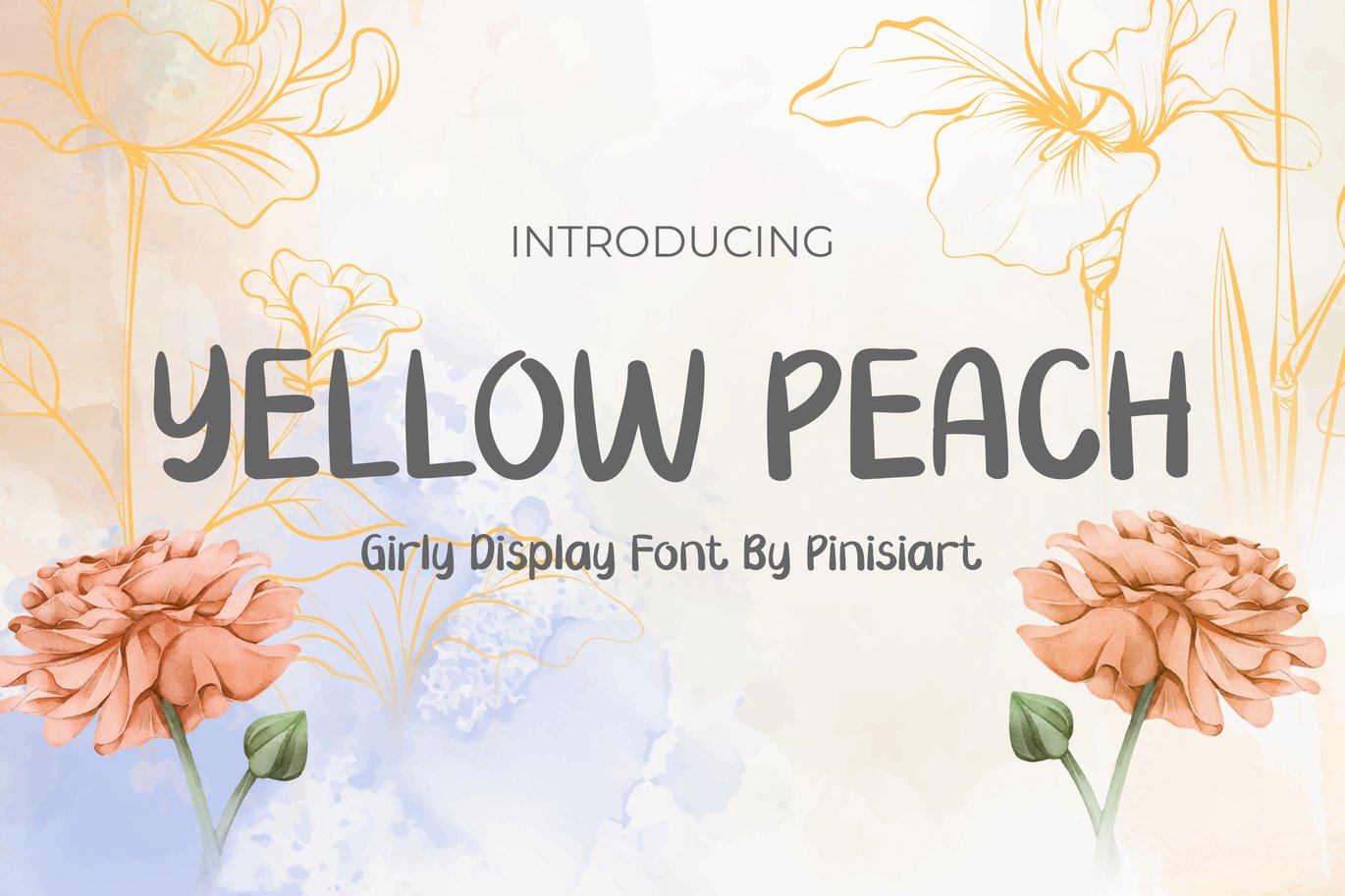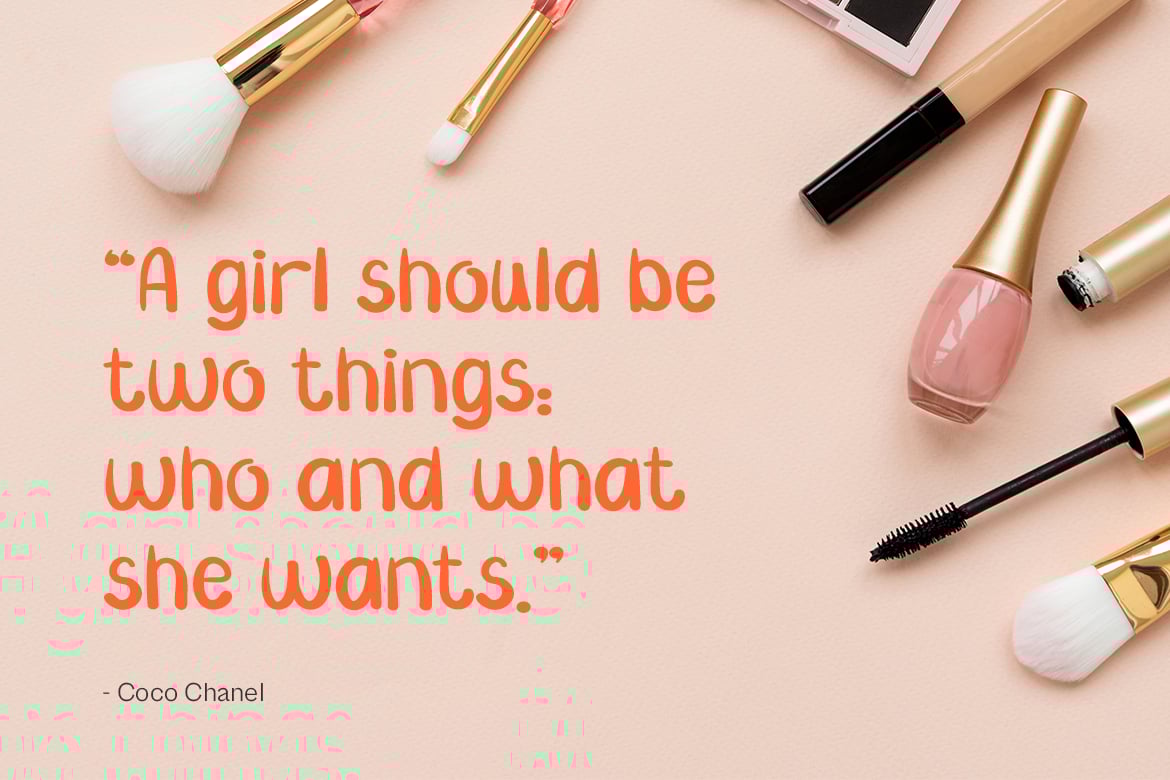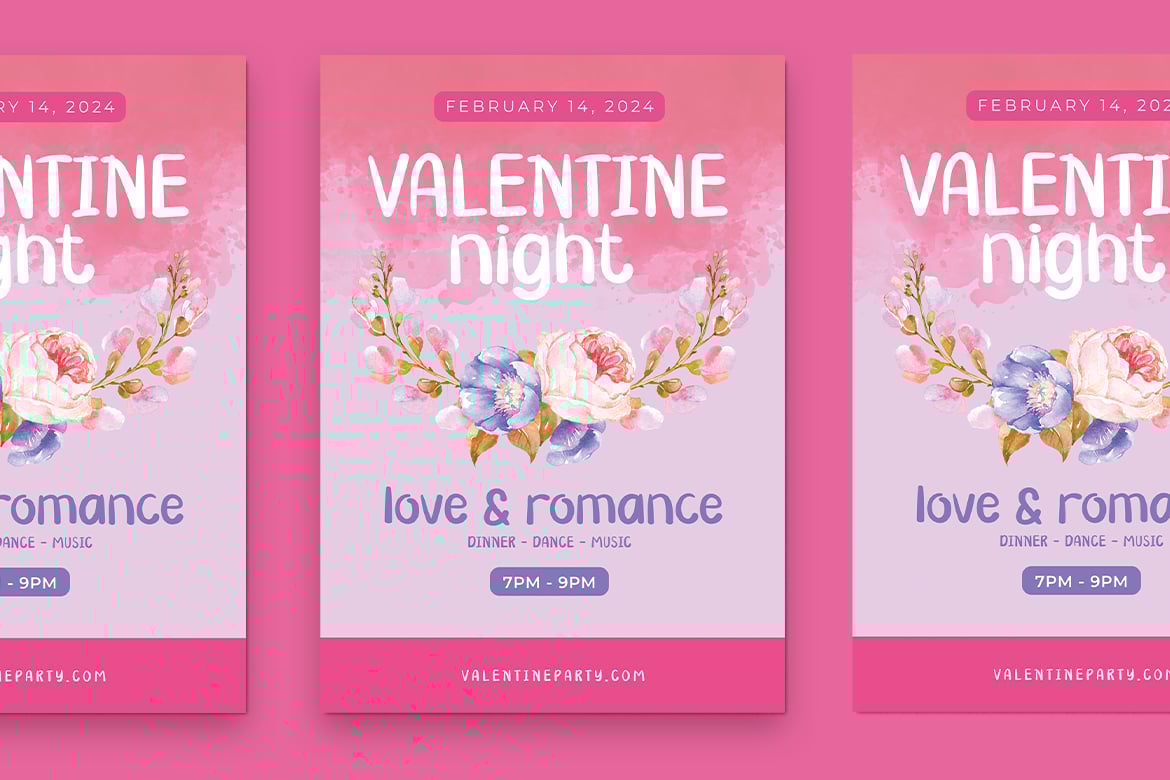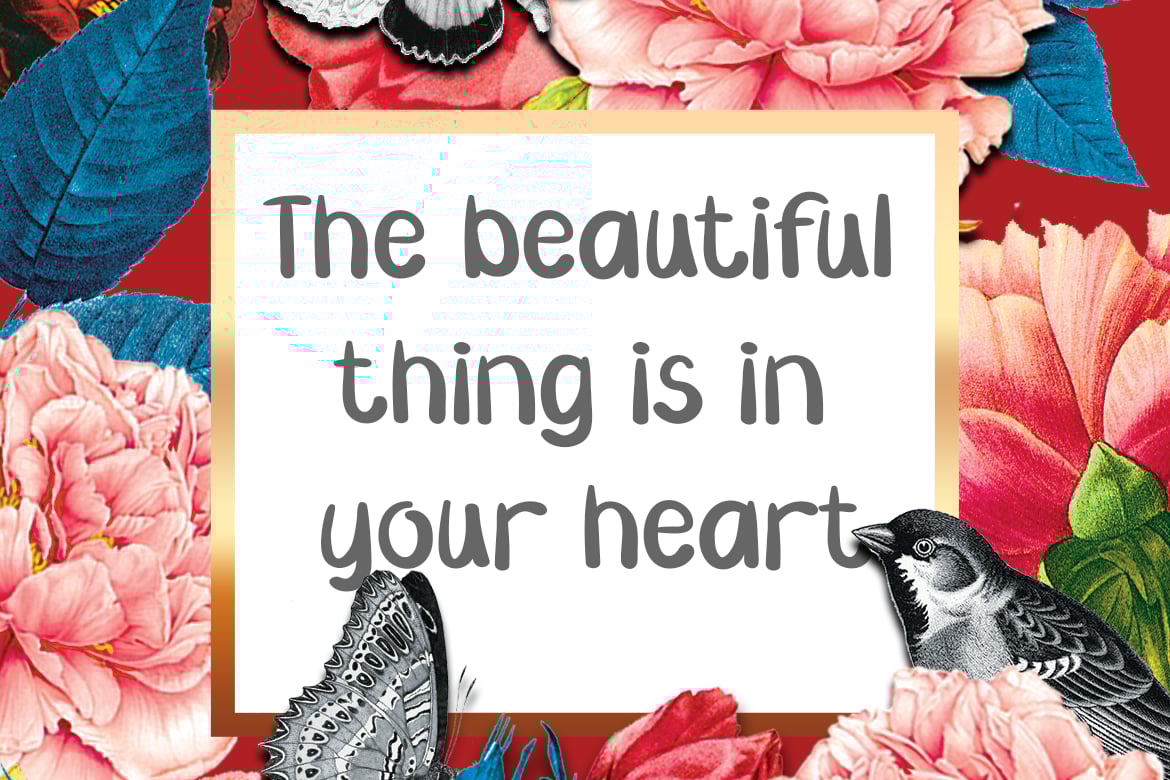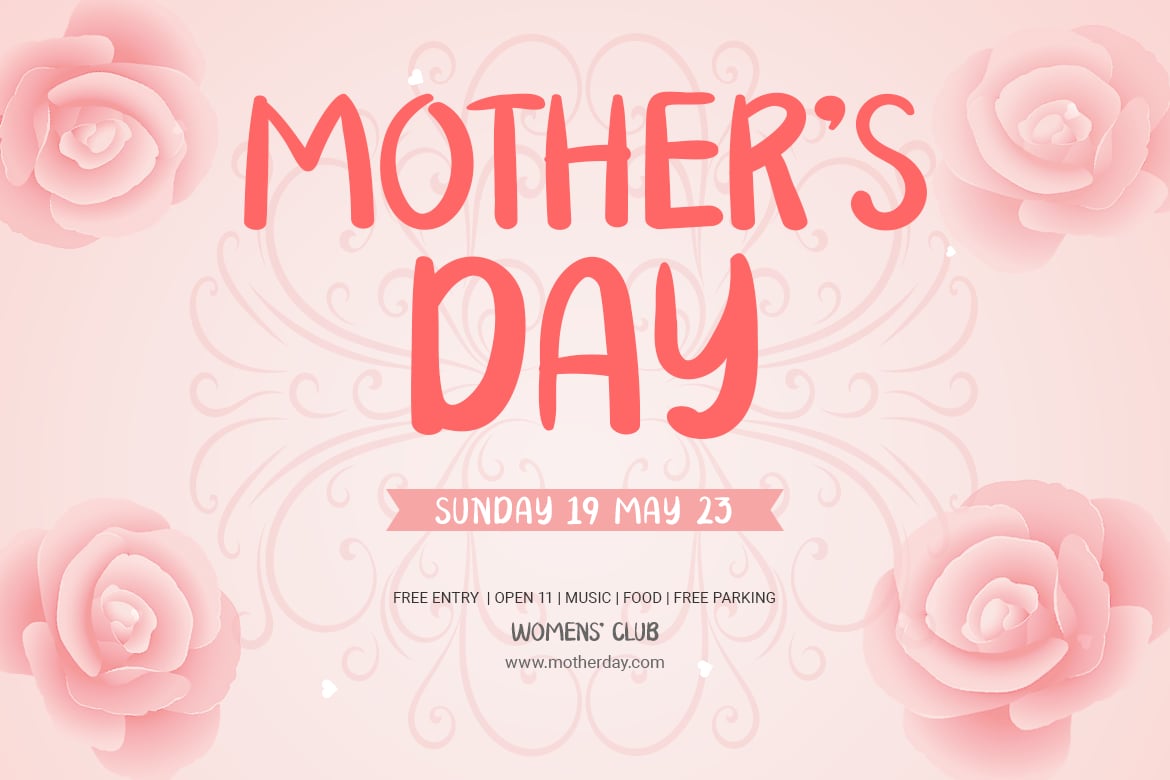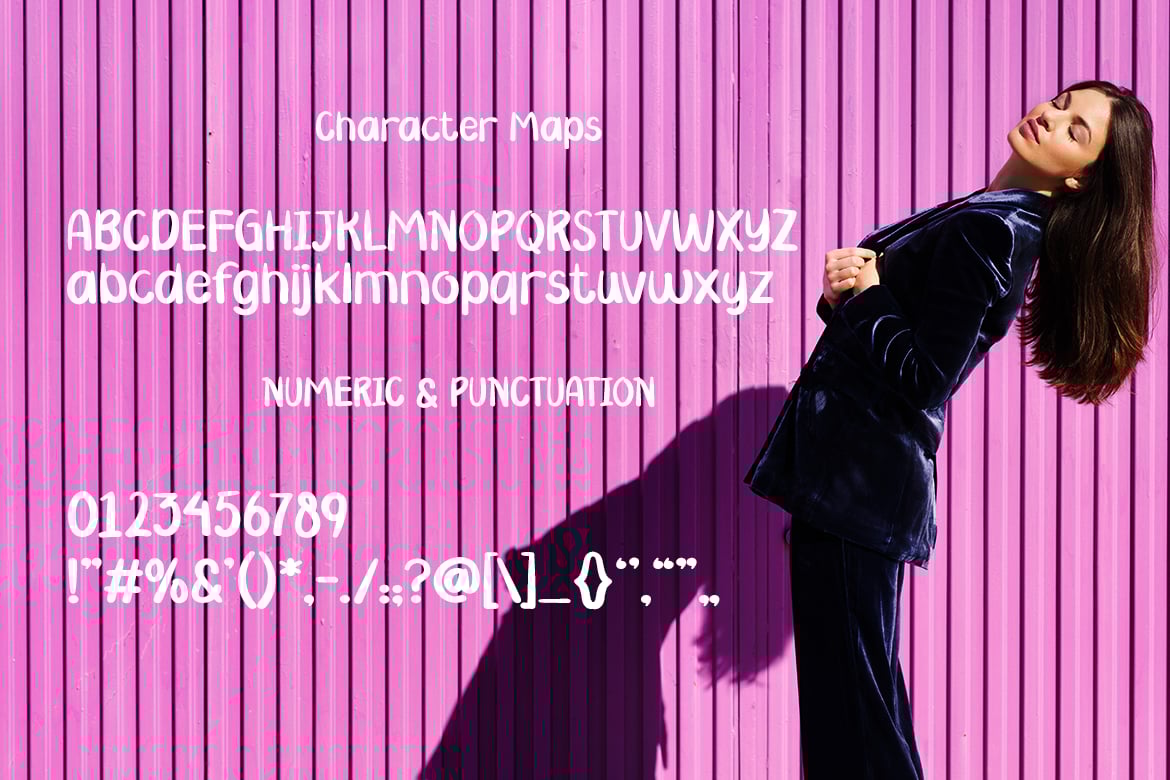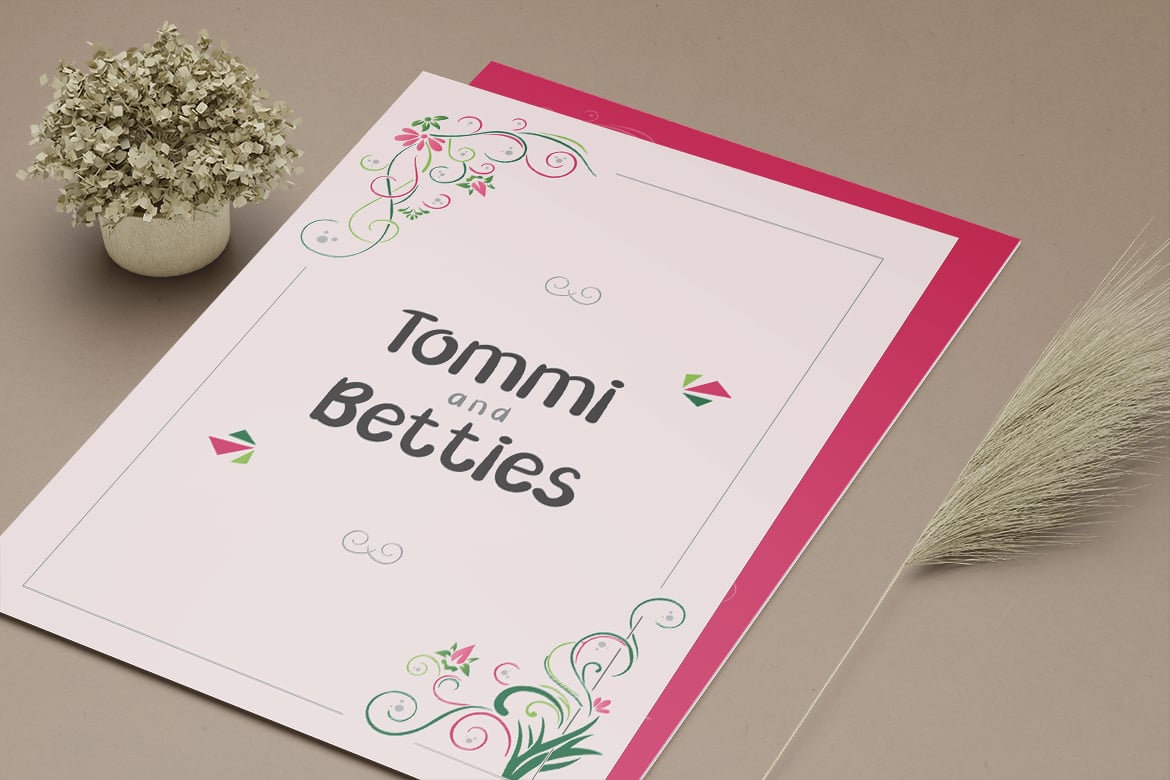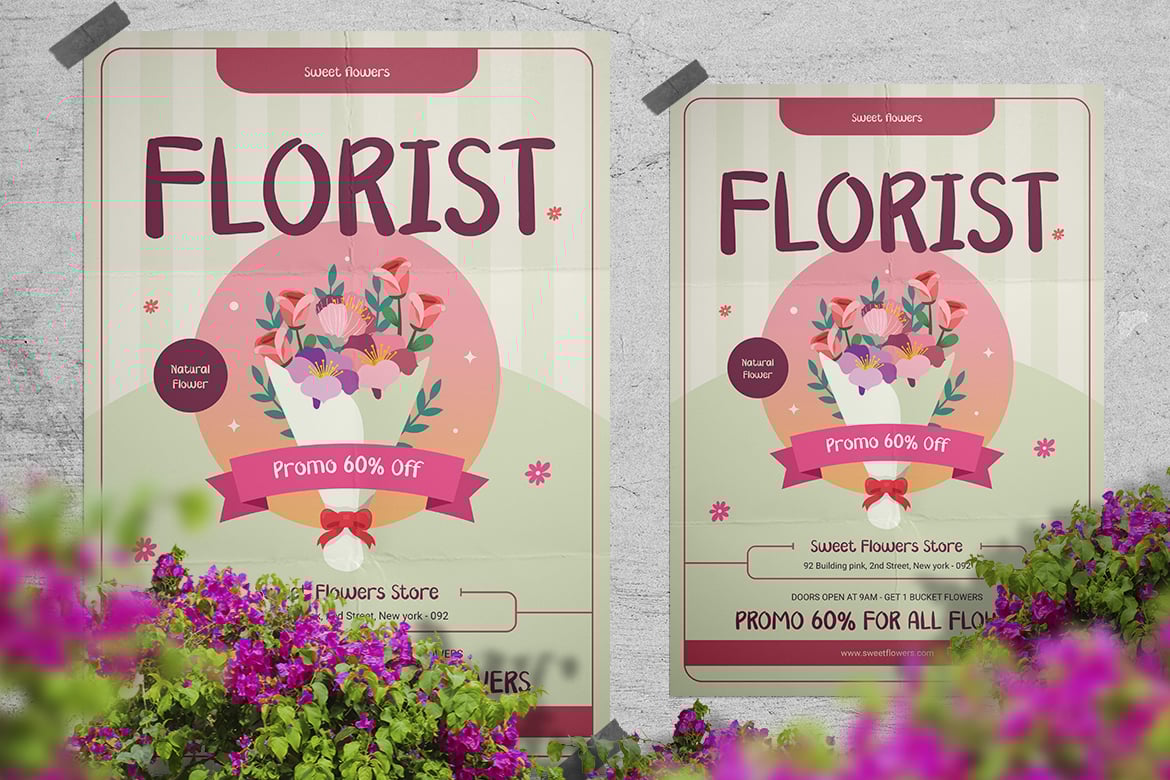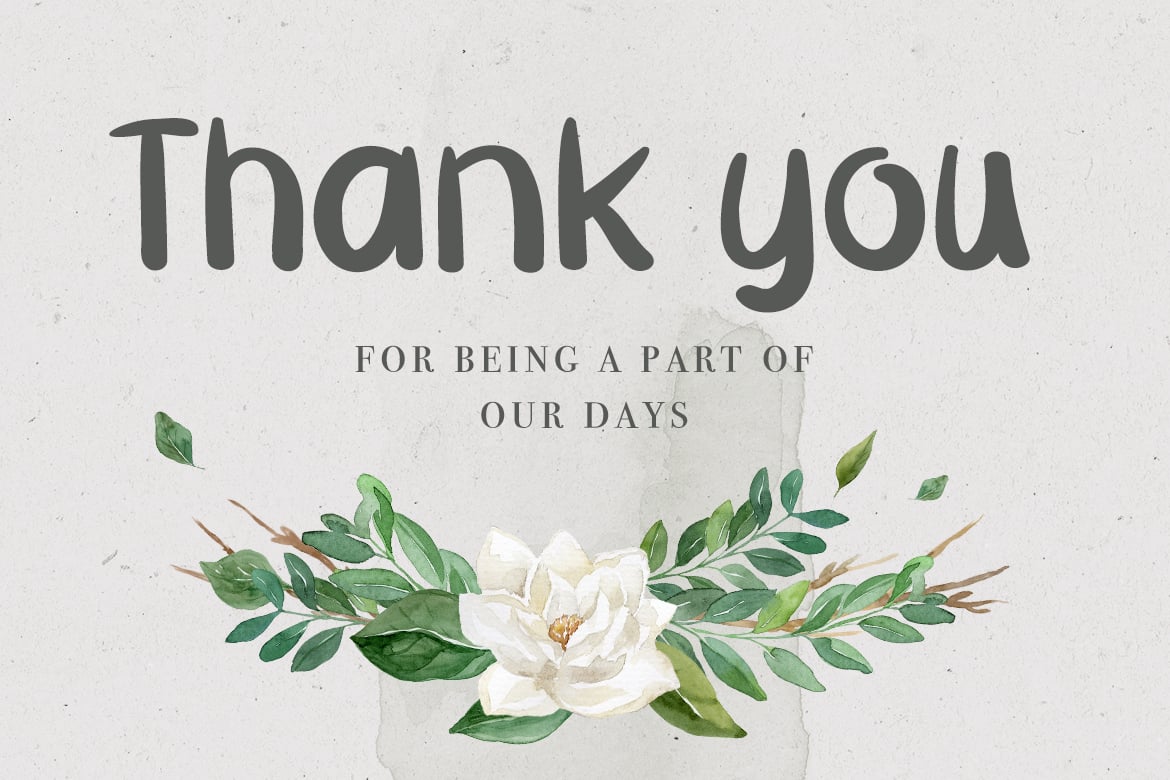
Girly Font – Yellow Peach
If you’re looking for a font that perfectly blends playful fun with modern sophistication, then Yellow Peach is the font for you. This display font boasts a unique design that is both cute and stylish, making it the perfect choice for anyone who wants to stand out from the crowd.
Featuring a handcrafted look and feel, Yellow Peach is a handwriting font that exudes personality and charm. Whether you’re creating a logo, designing marketing materials, or just looking to add some flair to your personal projects, this versatile font will deliver every time.
So why settle for a plain and boring font when you can choose Yellow Peach – the perfect blend of modern style and playful fun?